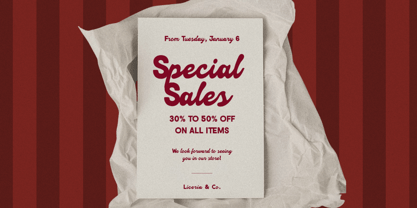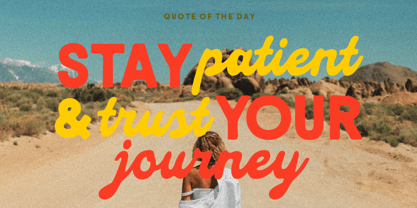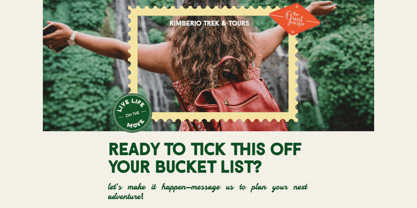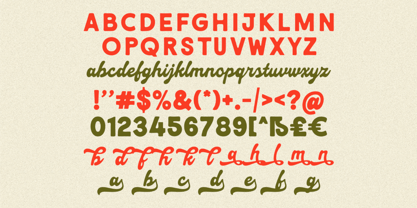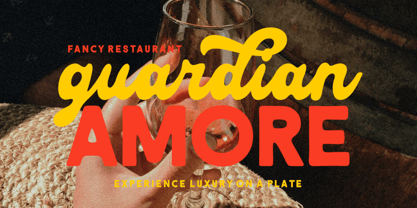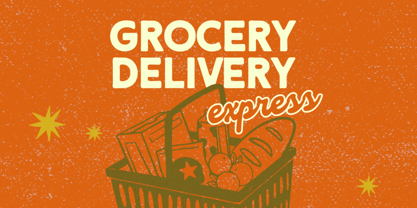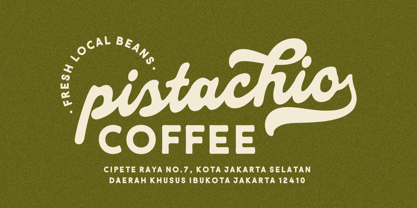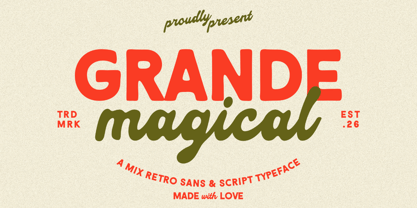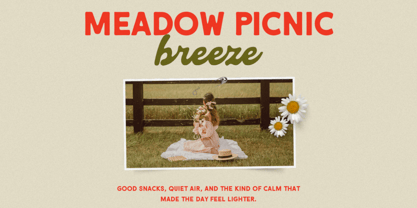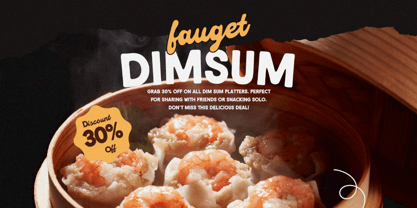
Grande Magical
by Heinzel Std
The Grande Magical Font Family was designed by Nofi Sofyan Hadi and published by Heinzel Std. Grande Magical contains 1 styles. More about this family
Grande Magical is a charming retro-inspired typeface that blends bold sans lettering with a smooth, flowing script to create a playful yet stylish look. Designed to capture the warmth of vintage design, Grande Magical brings a nostalgic feel while still looking fresh and modern. The bold sans style gives strong visual impact, while the script element adds a friendly, handcrafted personality that makes any design feel lively and unique. Perfect for branding, packaging, posters, logos, apparel designs, social media graphics, and retro-themed projects, Grande Magical helps designers create eye-catching typography with a magical vintage vibe. Its combination of strong letterforms and smooth script strokes makes it ideal for headlines and standout titles that need personality and charm. Whether you’re designing for a retro brand identity or simply want a typeface that feels fun, bold, and memorable, Grande Magical adds character and creativity to any project.
Designers: Nofi Sofyan Hadi
Foundry: Heinzel Std